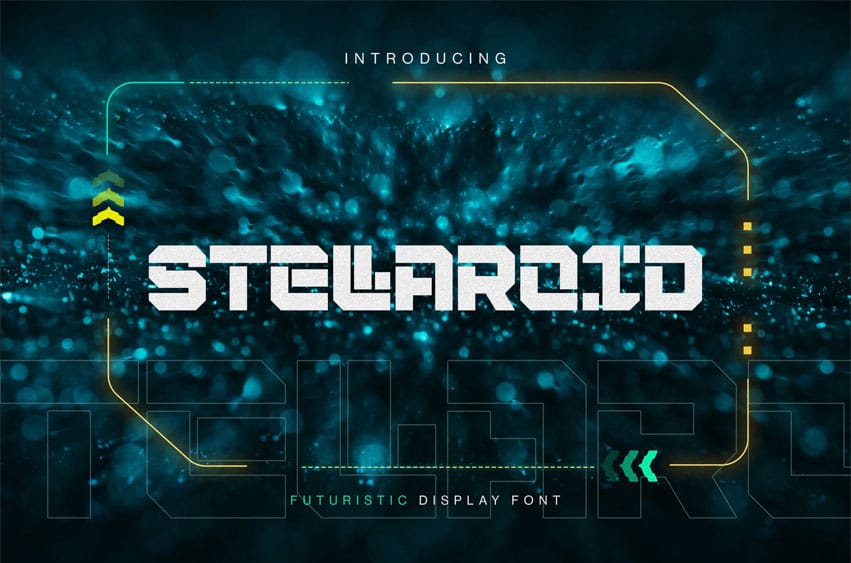
Stellaroid Font is a modern, futuristic sans-serif font designed with precision for high-tech projects. With its clean, sharp lines and unique proportions, this font will make your designs look sophisticated and professional.
It’s perfect for logos, movie titles, posters, tech branding, product packaging, and user interfaces (UI/UX). The font comes with uppercase, lowercase, numbers, and a wide range of punctuation.
- Uppercase & Lowercase Letters:Â Offers flexibility in your typography.
- Complete Numbers & Punctuation:Â Allows you to create complete content.
- Ideal for:Â Branding, logos, posters, video games, websites, and technology-related projects.